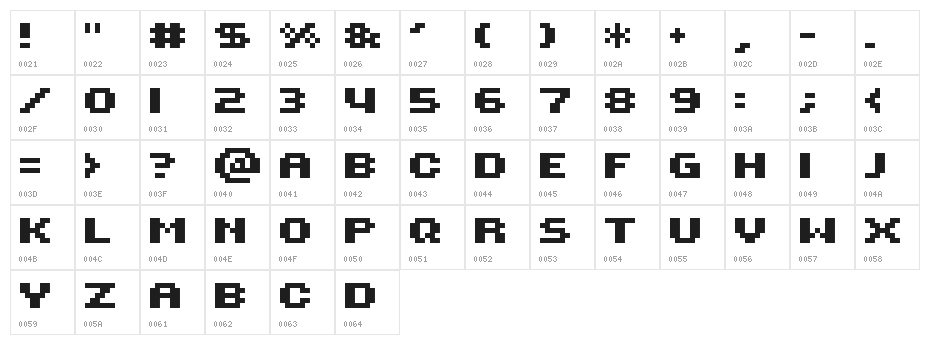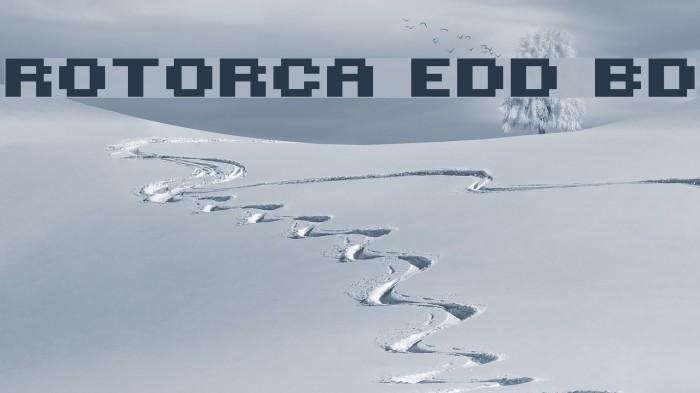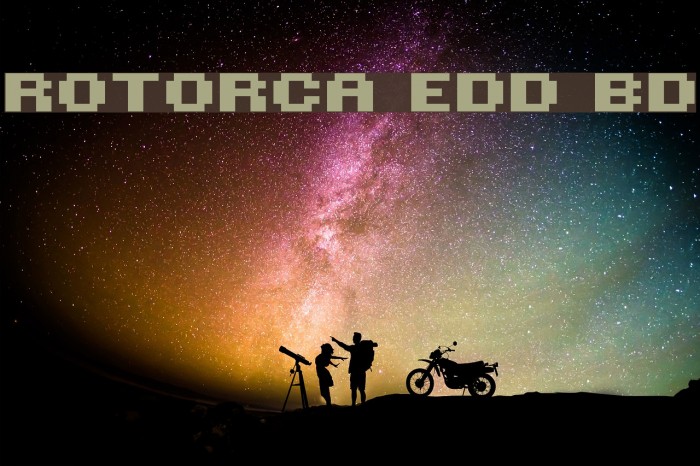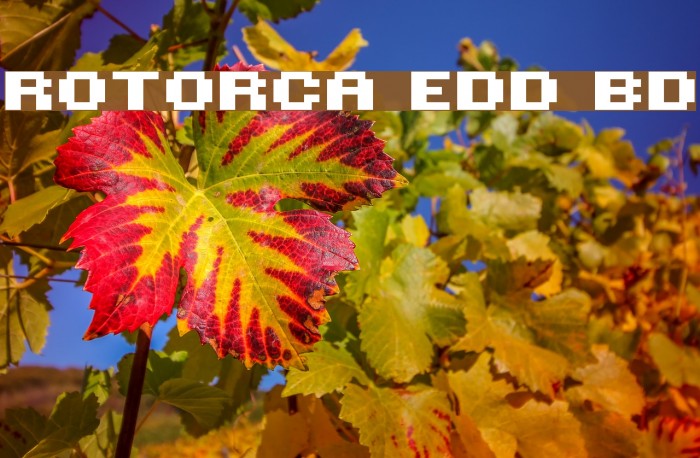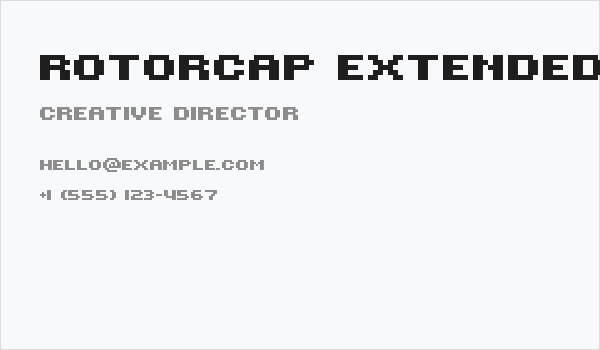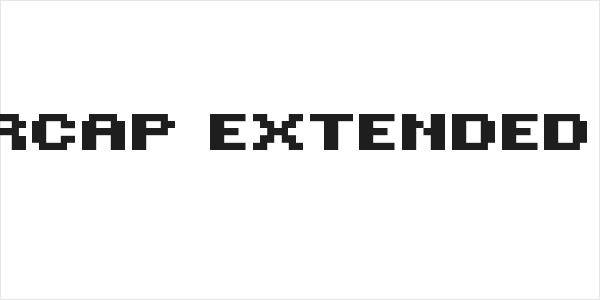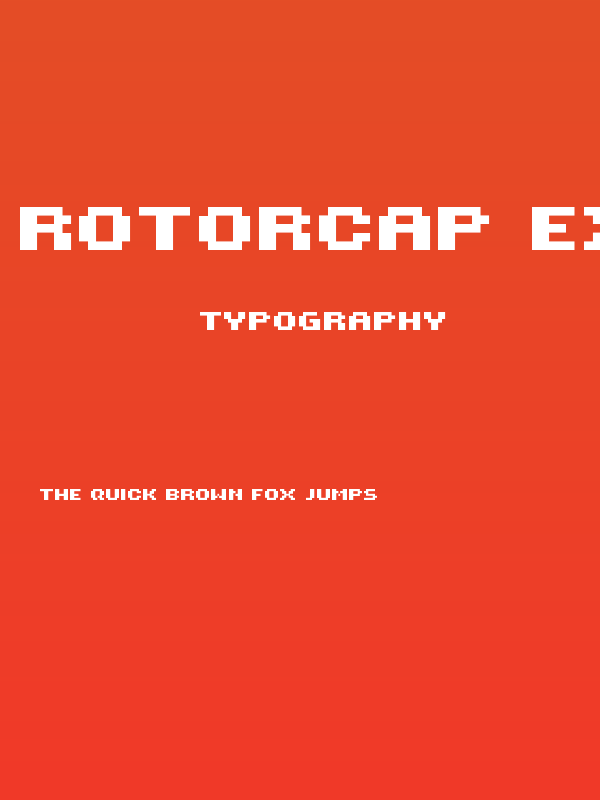
ROTORcap Extended Bold Font
ROTORcap Extended Bold Description
This font features a bold, geometric design with a distinctly modern and digital aesthetic. The characters are constructed with sharp, angular edges and a blocky appearance, reminiscent of early digital or pixelated typefaces. The uppercase letters are uniform in height, creating a cohesive and structured look. The numerals and special characters follow the same design principles, ensuring consistency across all glyphs. This font's boldness and extended width make it highly legible and impactful, suitable for digital displays or any project requiring a strong visual presence.
| Use Case | Headlines, Logos, Digital displays |
| Proposed Projects | Ideal for digital displays, video game graphics, tech branding, and modern posters. |